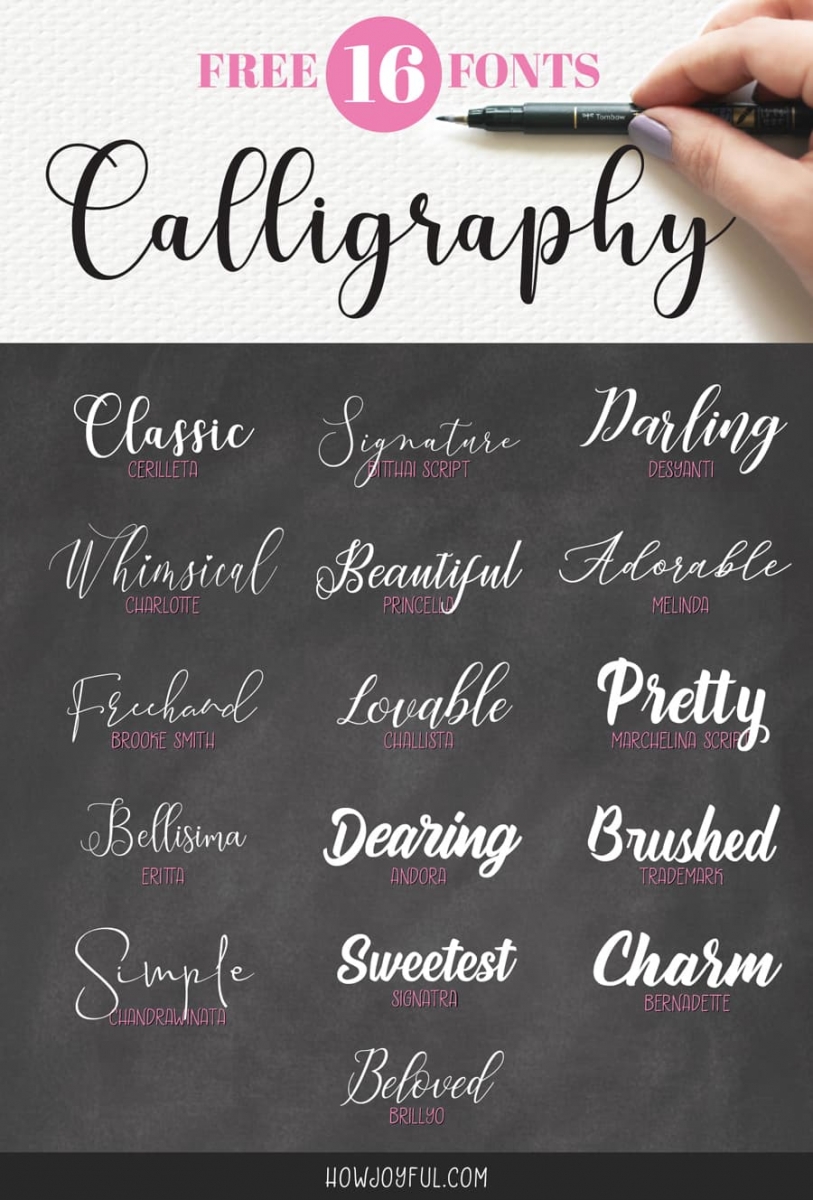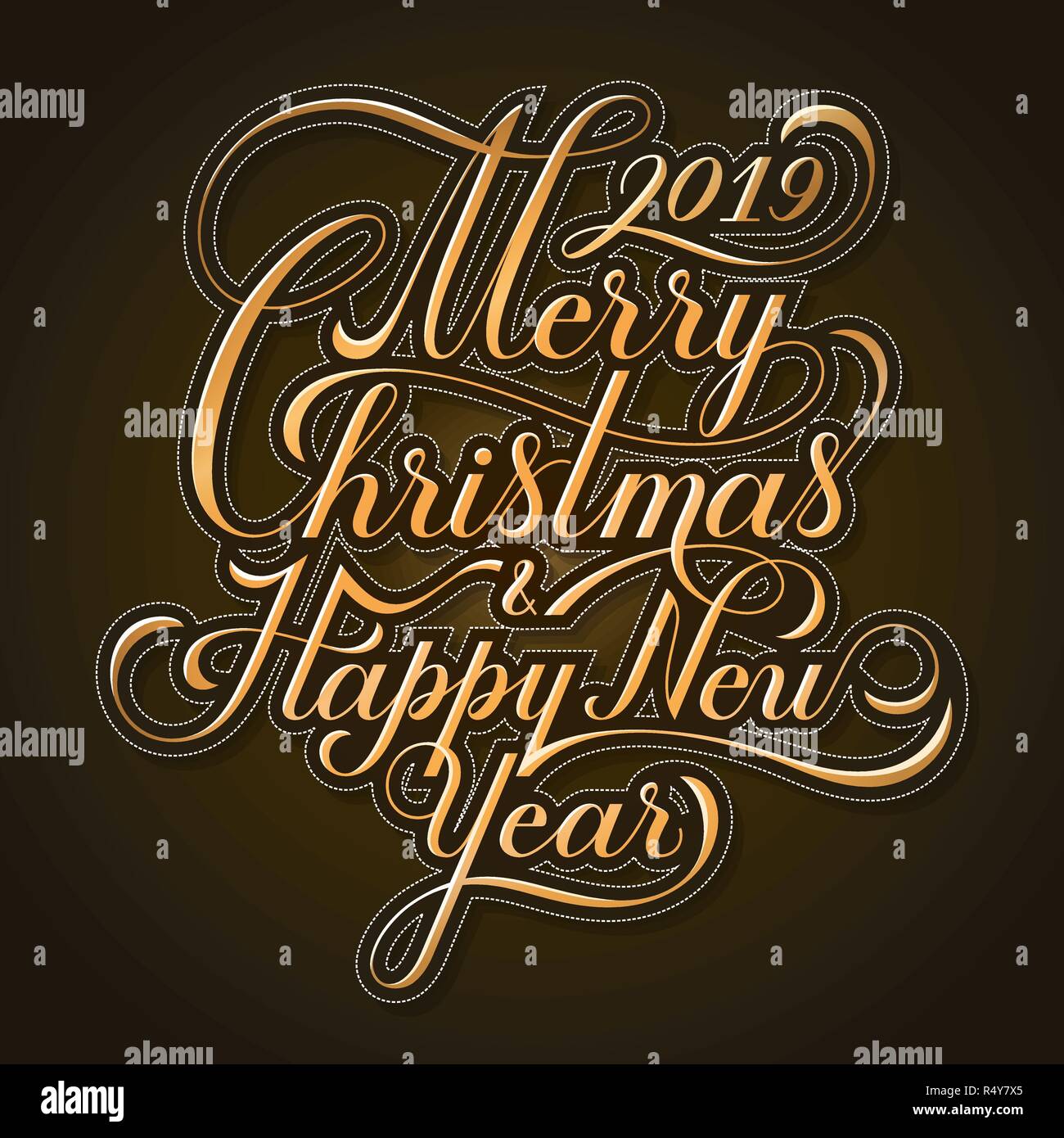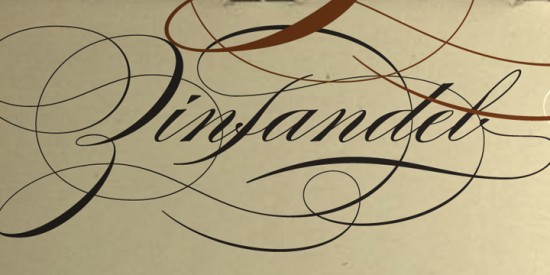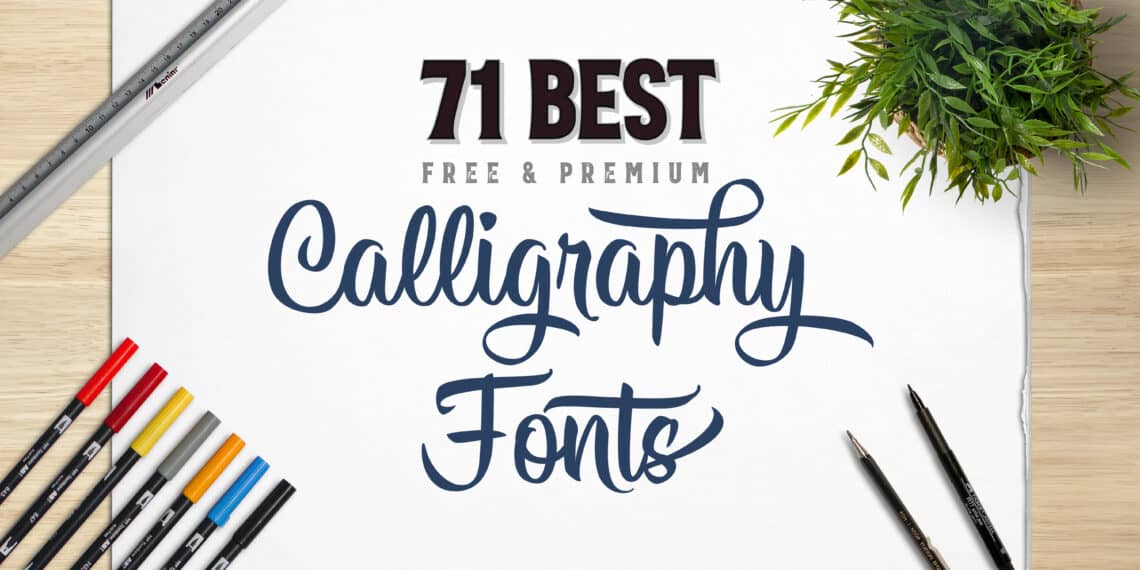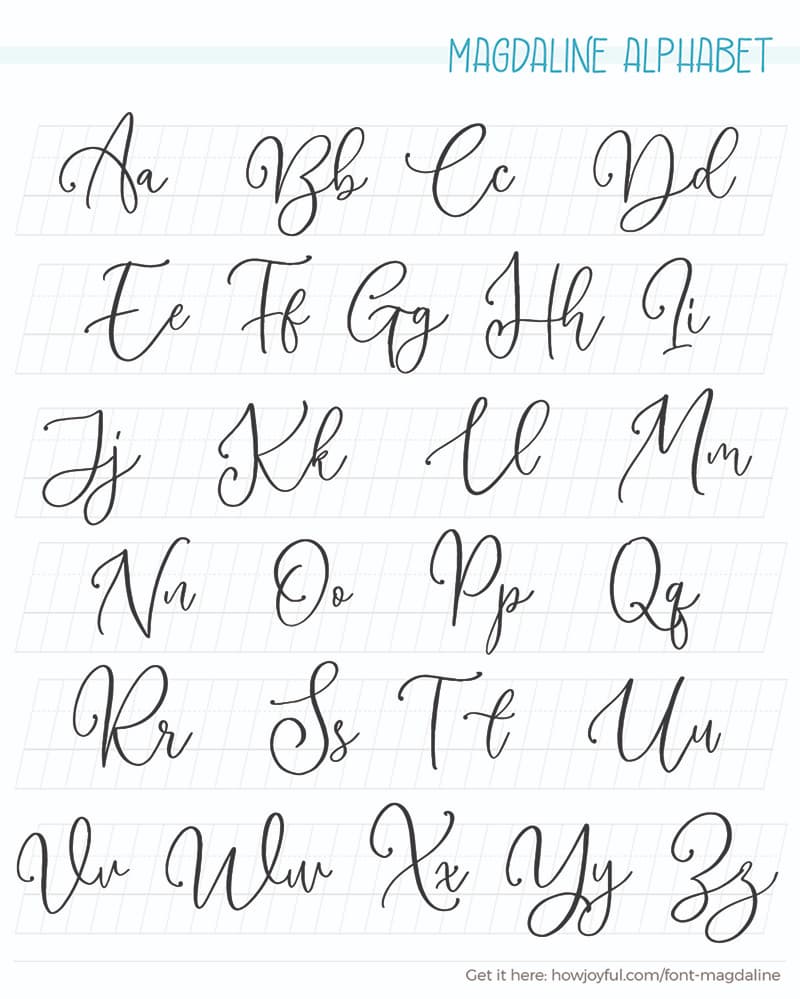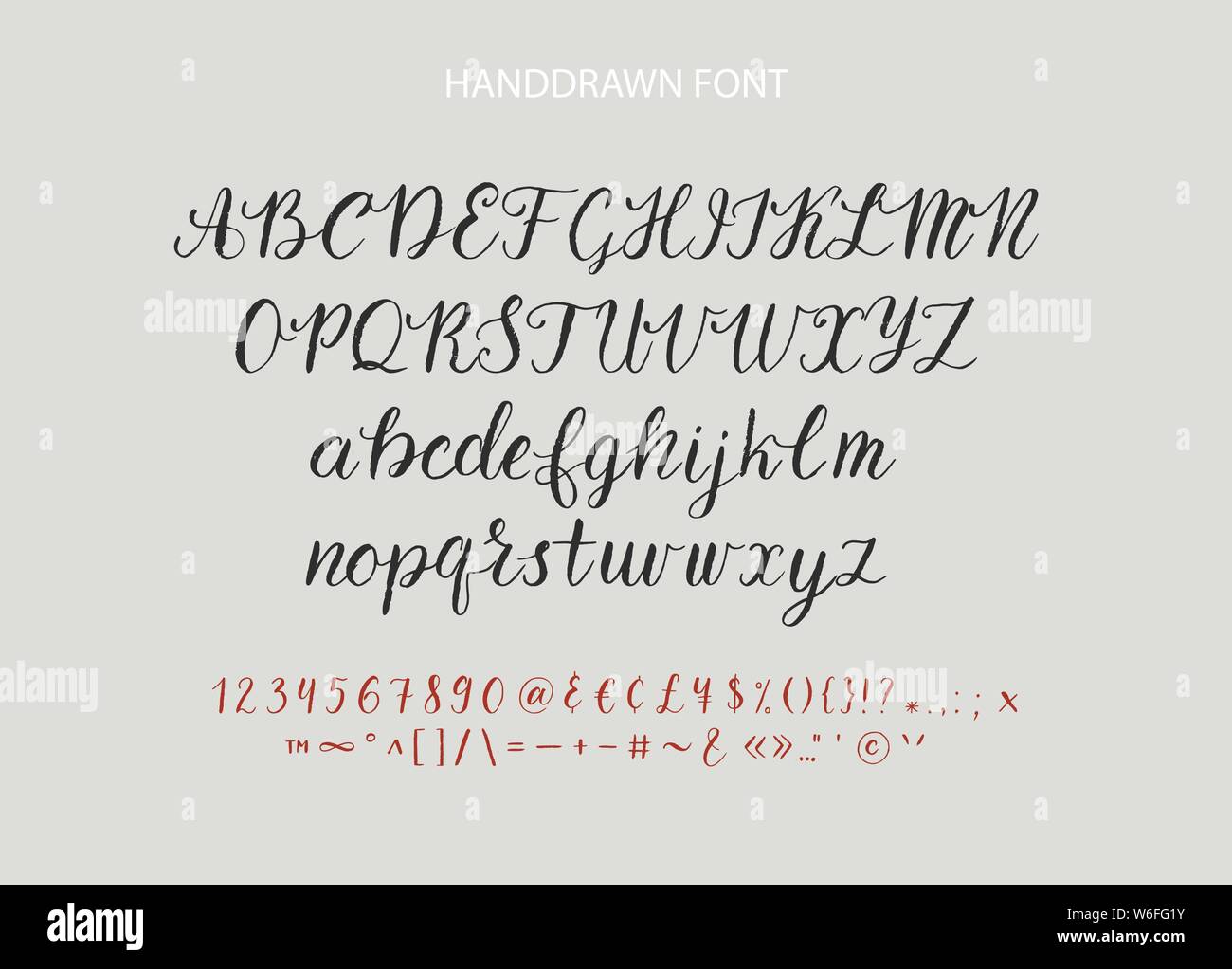
In most cases a writing font refers to a font that has a hand-drawn or handwriting aesthetic. As graphic designers we often used as decorative purposes.
The best calligraphy fonts are typefaces that accurately beautifully and legibly mimic human writing typically used to add style decoration and emphasis to short texts.
Calligraphy fonts style designs. The height of calligraphy was reached in the middle age where monks developed the narrow writing style called gothic allowing more words to fit on a single line as paper was expensive at the time. Graffiti Alphabet A-L Fancy Calligraphy style Graffiti Fonts M-Z style Calligraphy Fancy. It draws attention instantly.
Calligraphy is the design and creation of hand lettering with a brush or other writing tool. The main element is calligraphy fonts. Calligraphy Fonts can be used on different designs like certificates invitations etc.
These fonts are ideal when you need an elegantluxurious font such as with wedding invitations. It usually involves a nibbed pen or brush. There are many different types of writing fonts.
Charlotte Calligraphy is a stylish calligraphy font that features a varying baseline smooth line modern and with a depth love. Calligraphy fonts are widely used in wedding event invitations original logo design religious art films TV etc. Create a delightful experience with the Motisan script.
For graphic designers there are easy ways to achieve calligraphy styles. The main sub-styles are traditional calligraphy and modern calligraphy. Fonts calligraphy graphic design inspiration resources.
Rules govern the shape and execution of these letters similarly to a font. This brilliant font. Sometimes all your design needs is a great font.
Calligraphy is an artistic writing style where the pressure is varied to create thick and thin lines all in a single stroke.